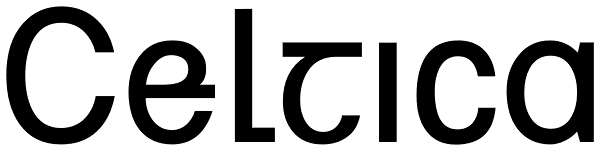
Celtica
Celtica is a kind of Helvetica meets Hibernia; the font can happily be used anywhere a Celtic identity is required for a twenty-first century context. The ubiquity and clarity of the sans serif lend legibility to the uncial forms of some letters...